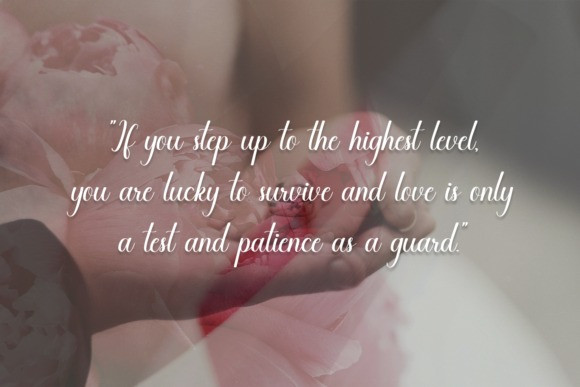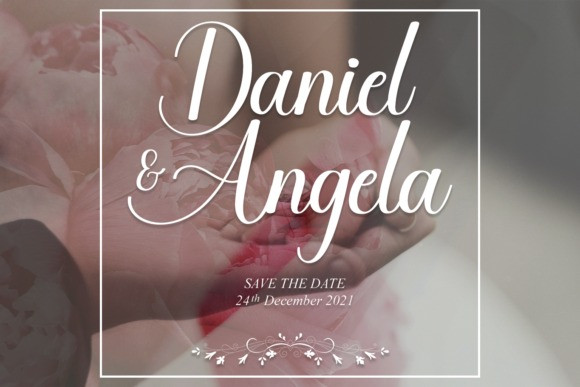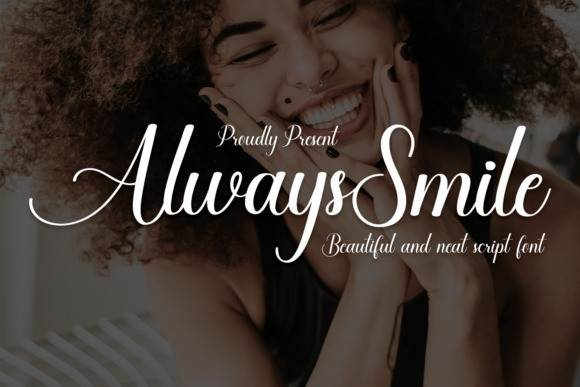
Always Smile Font
Always Smile Script Font is an exquisite handwritten font, masterfully designed to become a true favorite. It maintains its classy calligraphic influences while feeling contemporary and fresh. Fall in love with it and bring your projects to the highest levels!